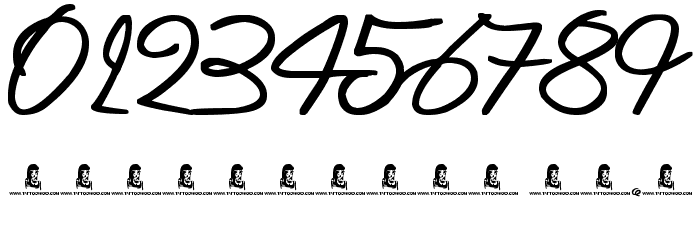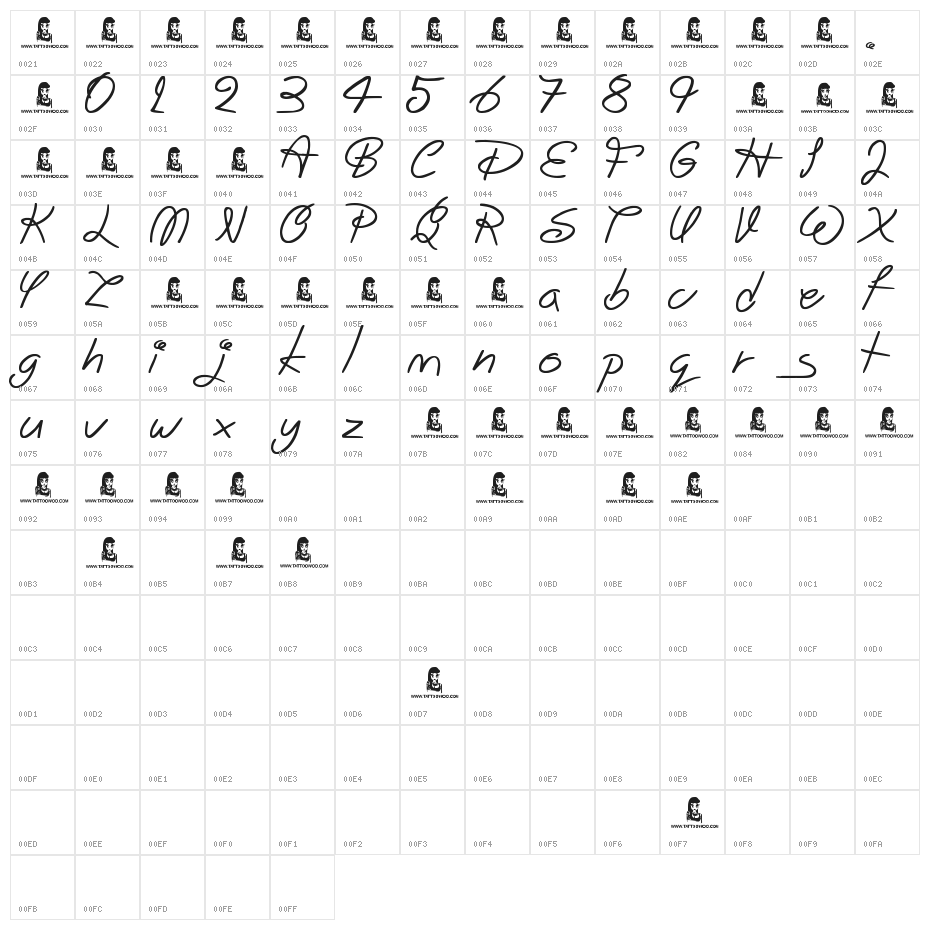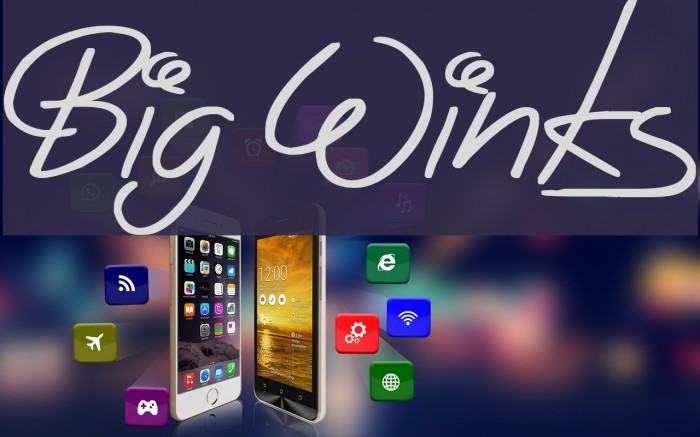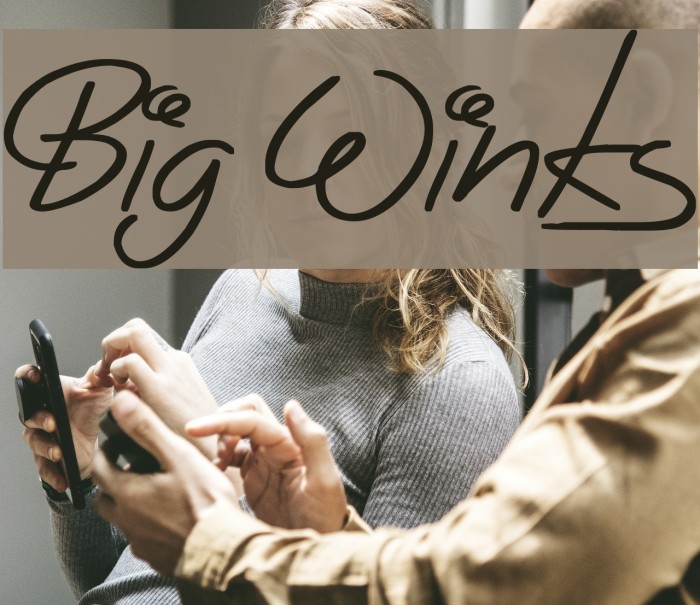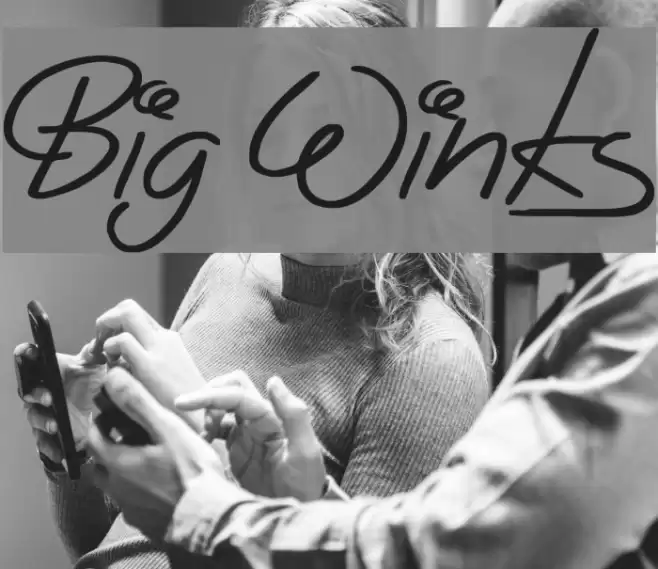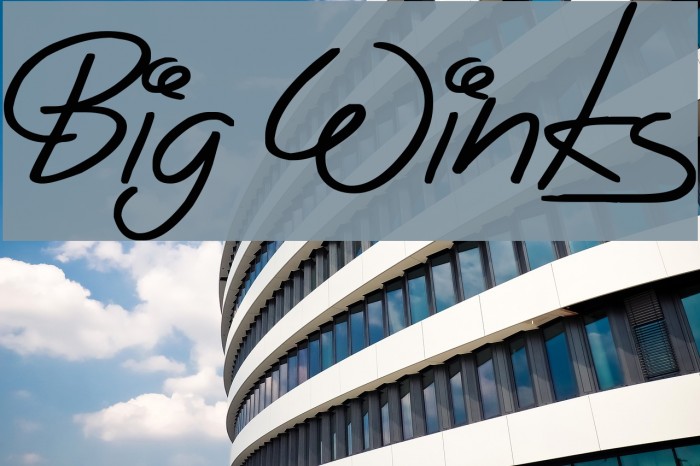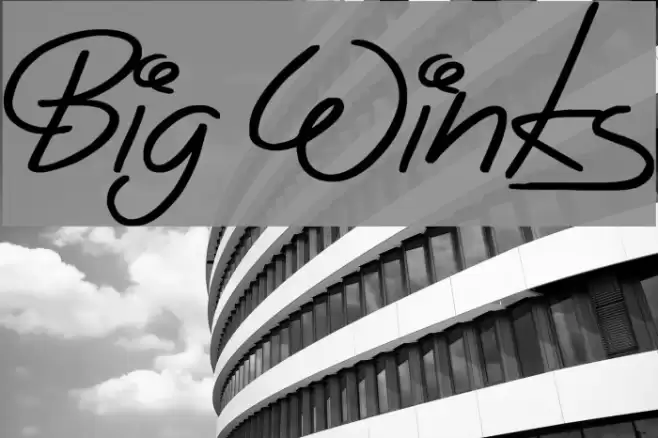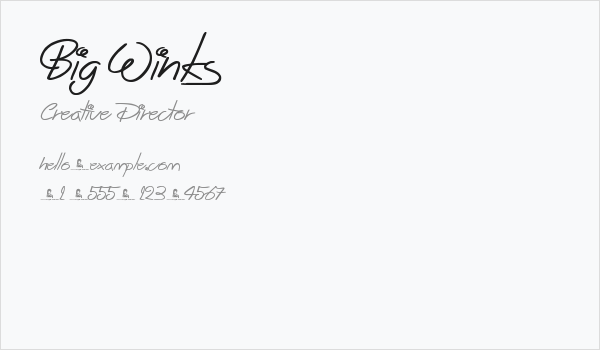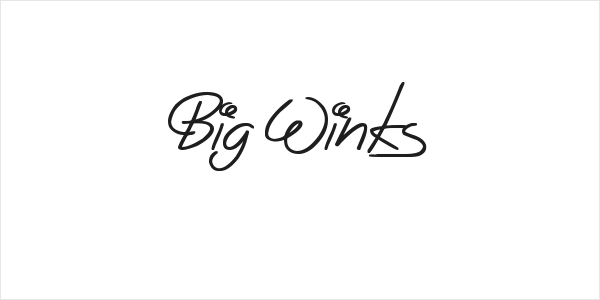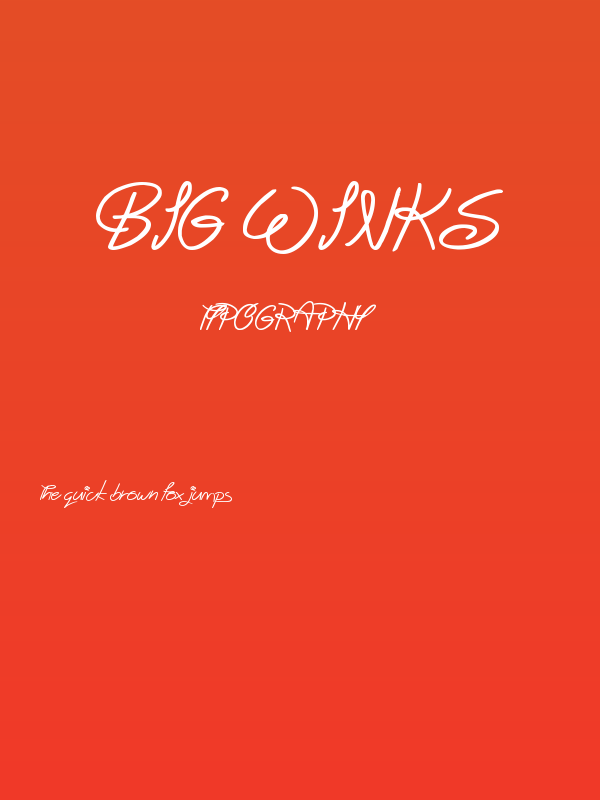
Big Winks Font
Big Winks Description
This font exudes a playful and energetic vibe, characterized by its bold, flowing script style. The letters are connected in a cursive manner, giving it a handwritten feel. The strokes are thick and consistent, providing a strong presence on the page. The uppercase letters are particularly expressive, with exaggerated loops and curves that add a whimsical touch. The lowercase letters maintain a more subdued style, yet still retain the overall fluidity. Numbers and special characters are designed to match the lively aesthetic, ensuring a cohesive look across all text. This font is ideal for projects that require a personal, informal touch, such as invitations, greeting cards, or creative branding.
| Overall Style | Playful, Energetic, Handwritten |
| Proposed Projects | Ideal for invitations, greeting cards, creative branding, and informal designs. |